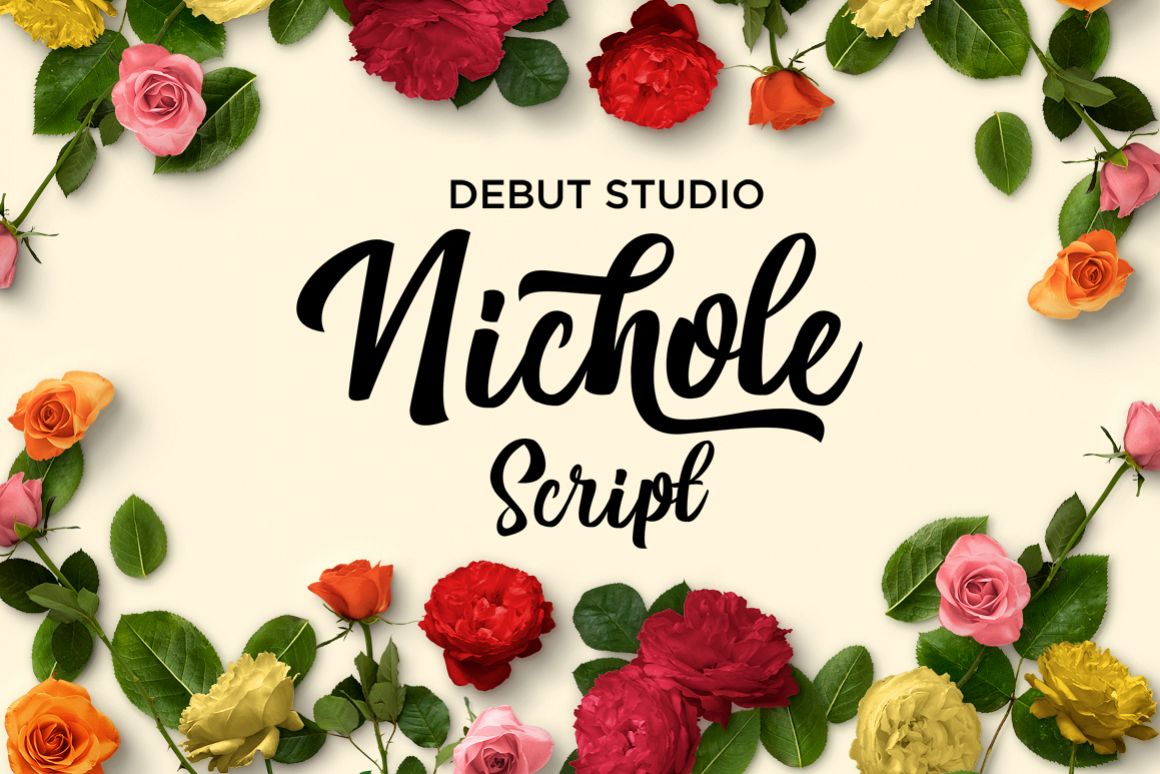
Nichole Script
Introducing Nichole Script
This font is suitable for young, passionate design, such as Wedding Invitation Design, flyer design, Logo Design, and various other design purposes.
- Alternate Stylistic Character